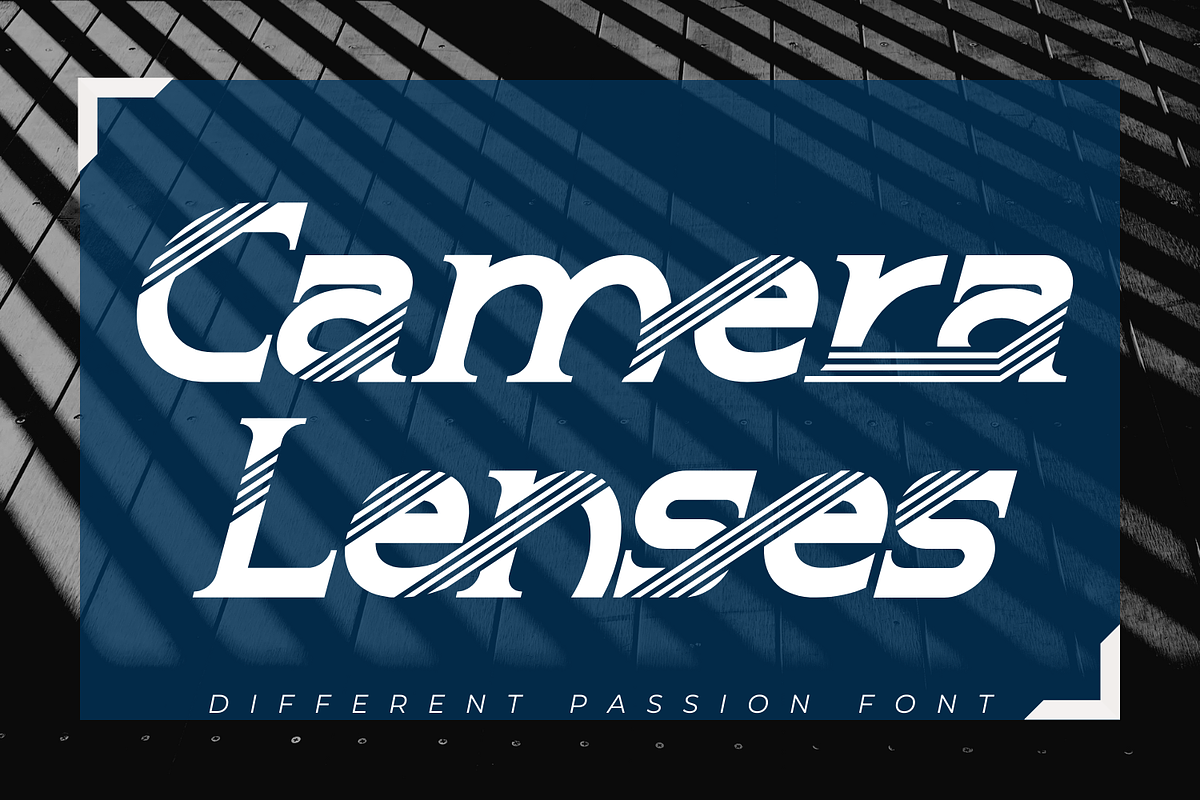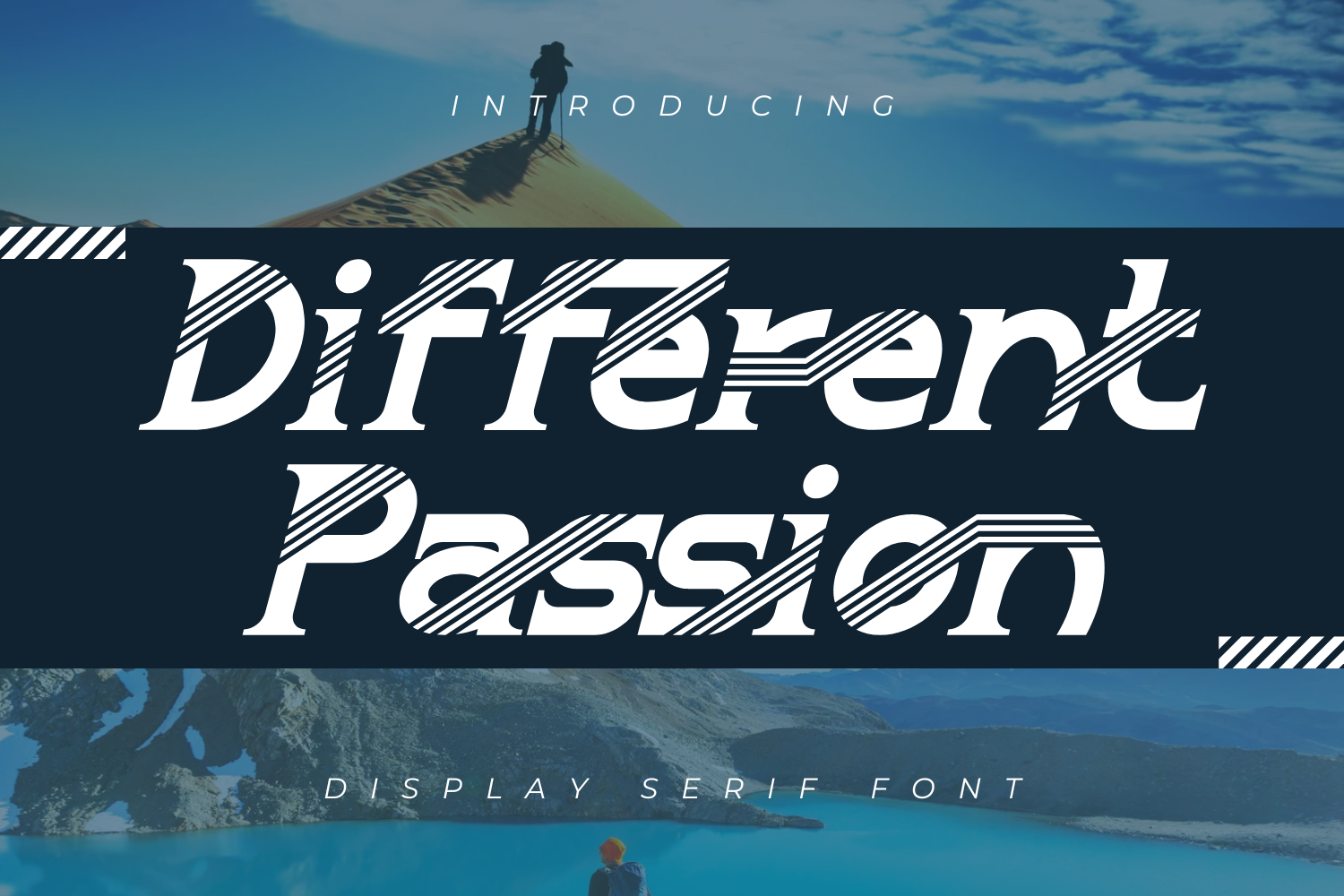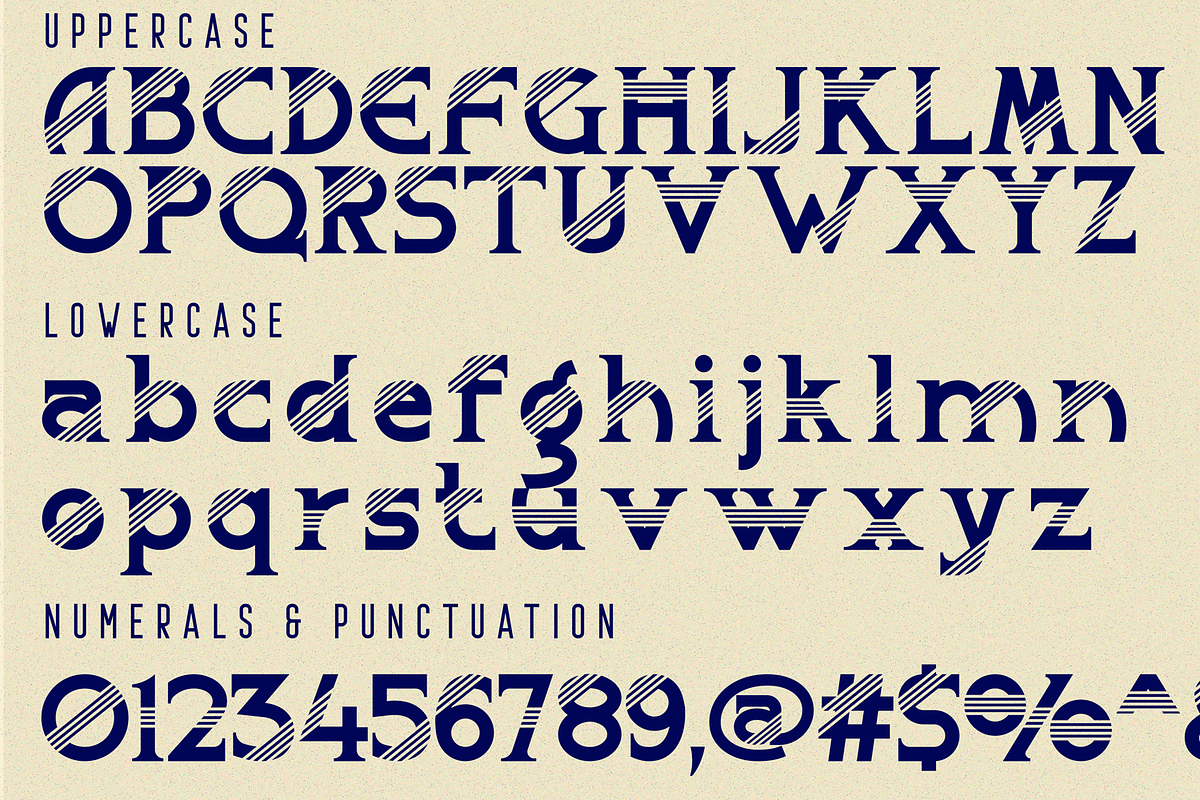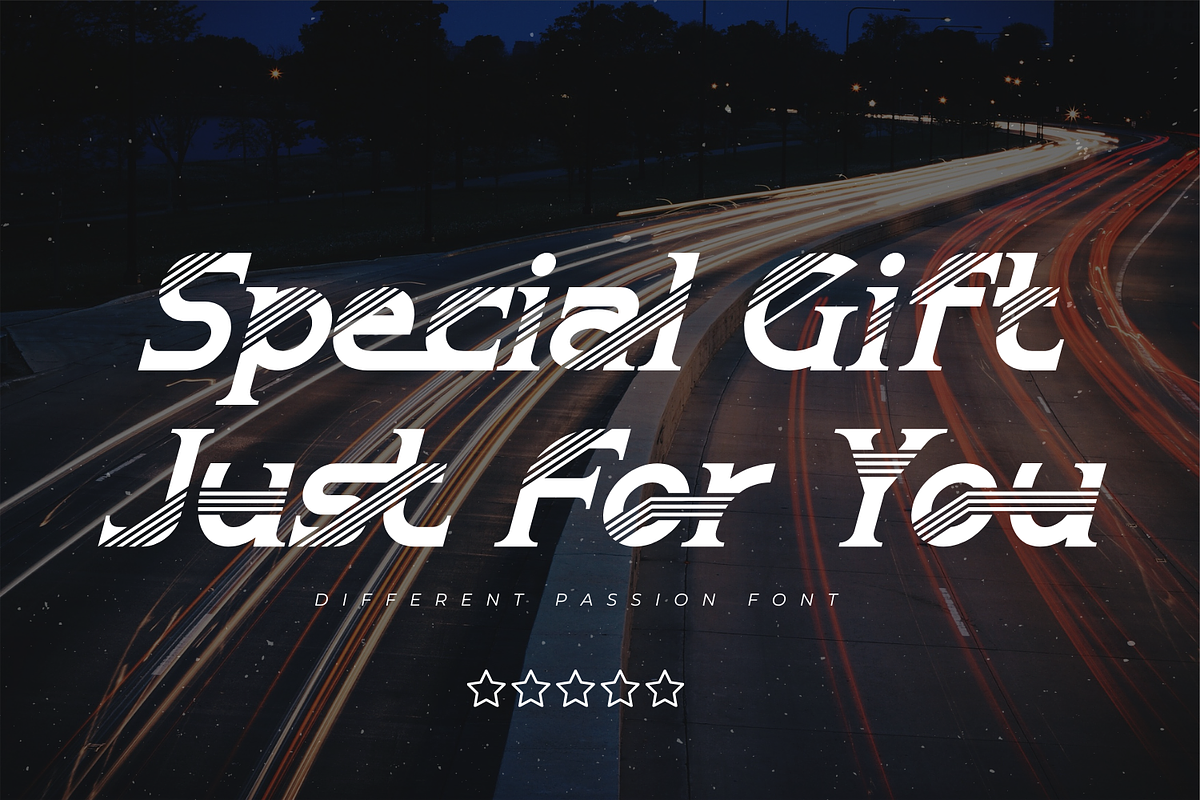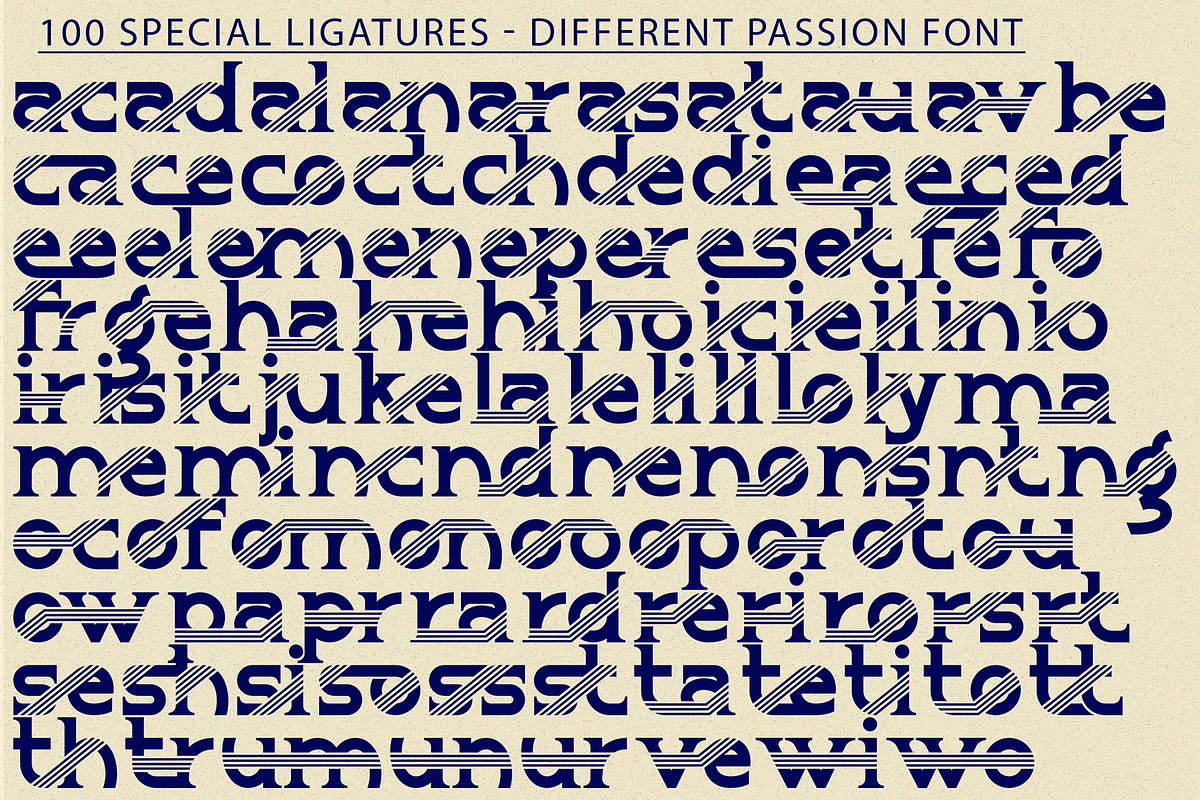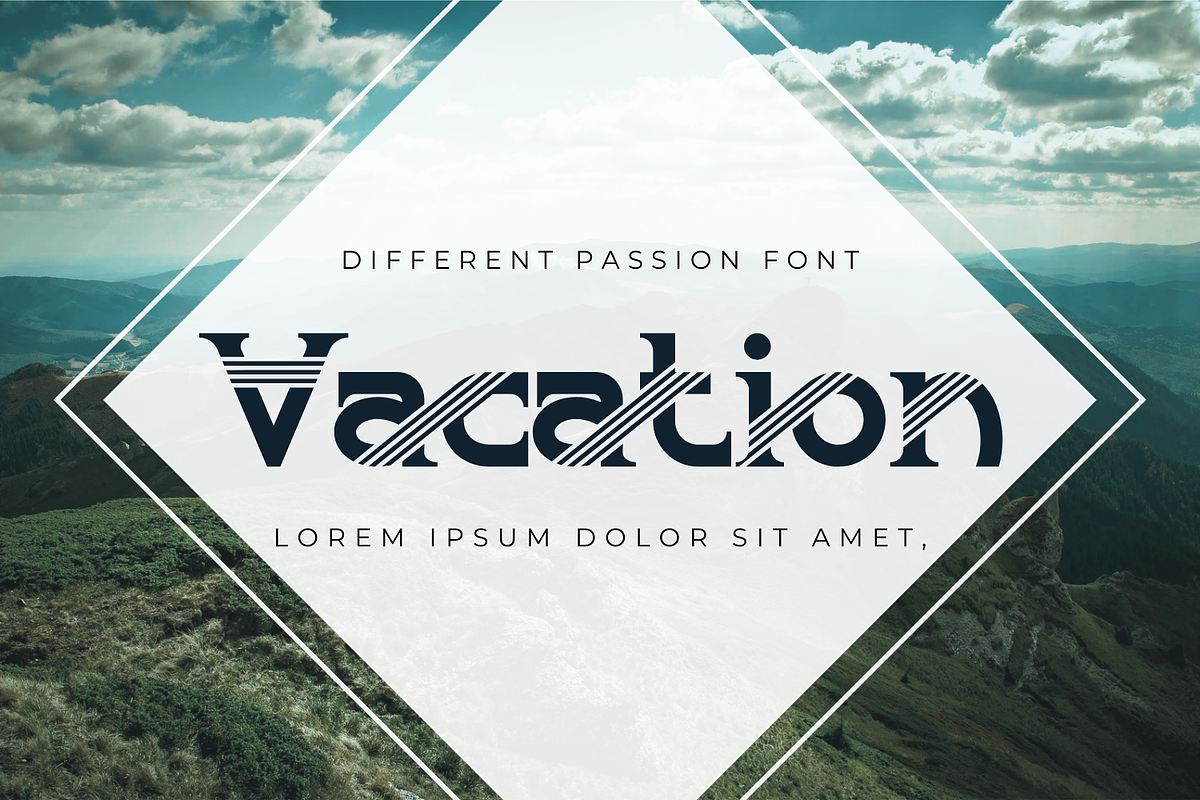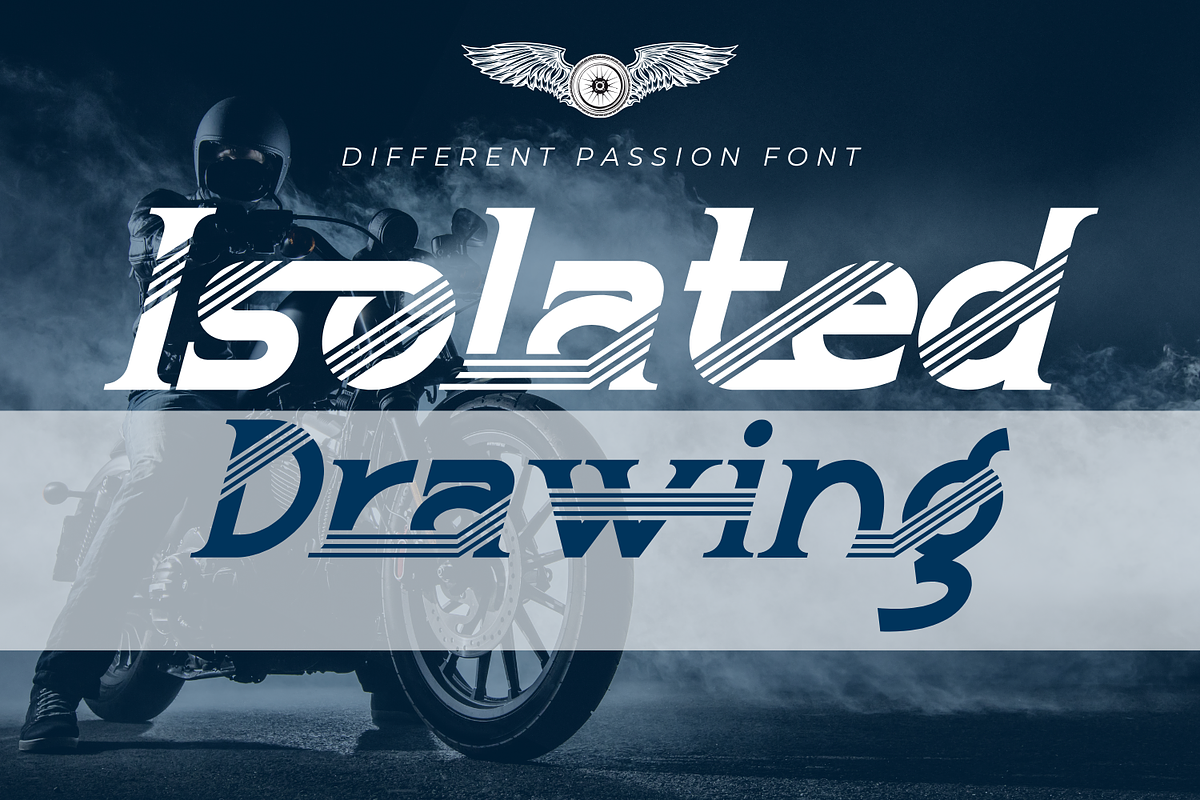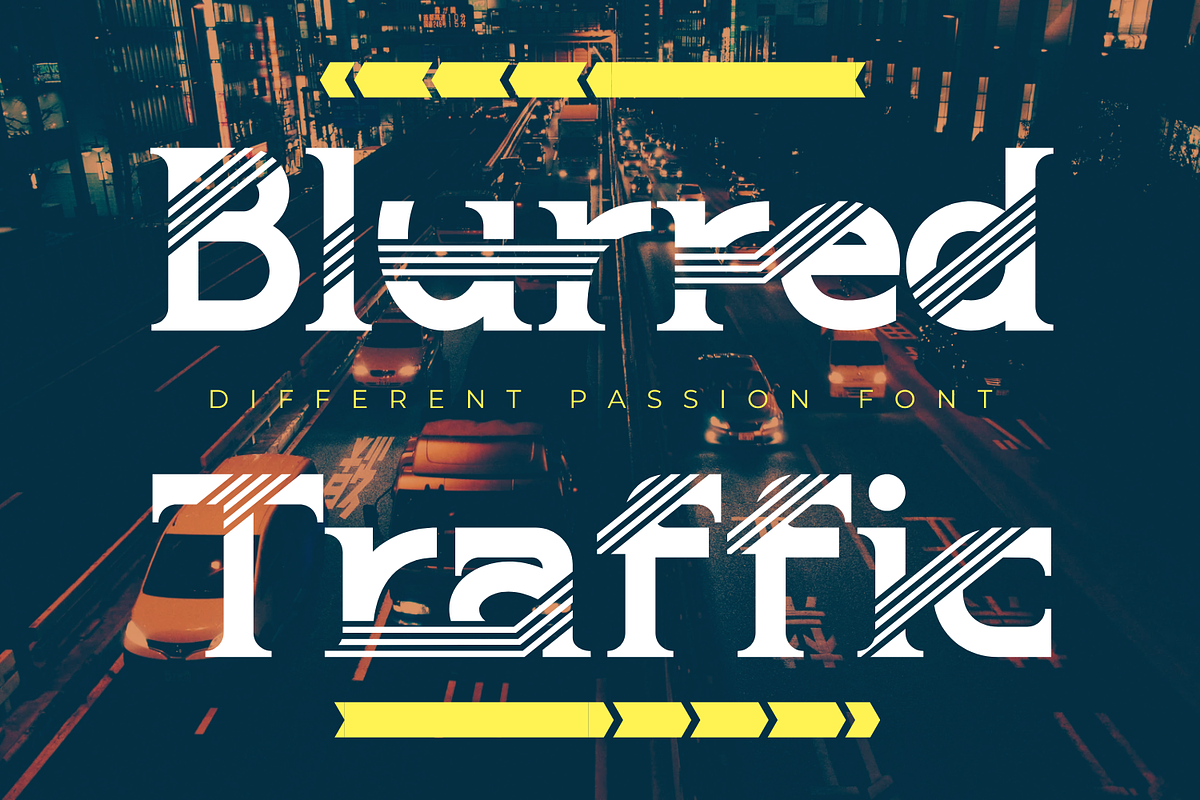
Different Passion - Striped Font
Different Passion - Striped Font - Eye-catching lines font designed to captivate with its bold, geometric clean lines. The font design consists of parallel lines that create a sense of movement and depth, making it ideal for projects that demand attention and contemporary aesthetics. Perfectly suited for creating impactful headlines, posters, logos, and branding materials, this font offers a unique blend of sophistication and creativity.
Different Passion was built with OpenType features and includes 100 ligatures, alternate, numbers, punctuation, and it also supports other languages.
ac ad al an ar as at au av be ca ce ch co ct de di ea ec ed ee el em en ep er es et fe fo fr ge ha he hi ho ie ic il in io ir is it ju ke la le li ll lo ly ma me mi nc nd ne ng no nt ns oc of om on oo op or ot ou ow pa pr ra rd re ri ro rs rt se sh si so ss st ta te th ti to tr tt um un ur ve wi wo
- Special Ligatures